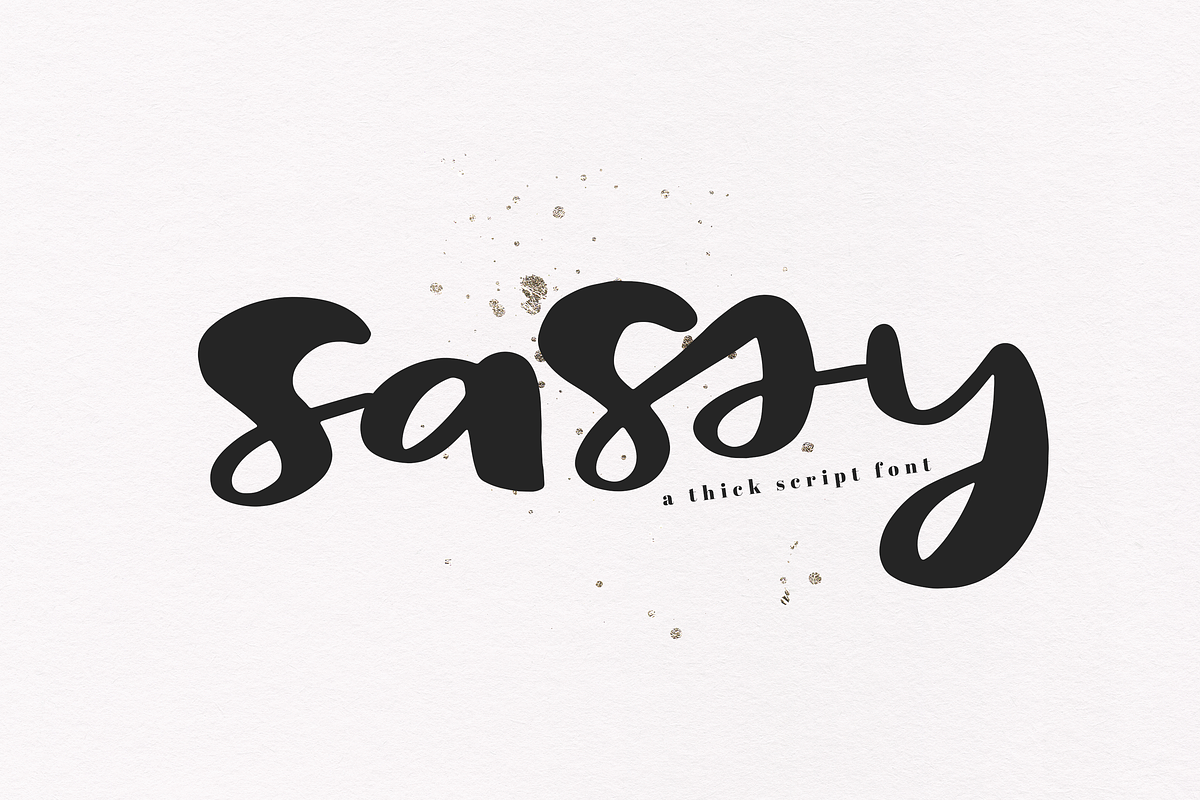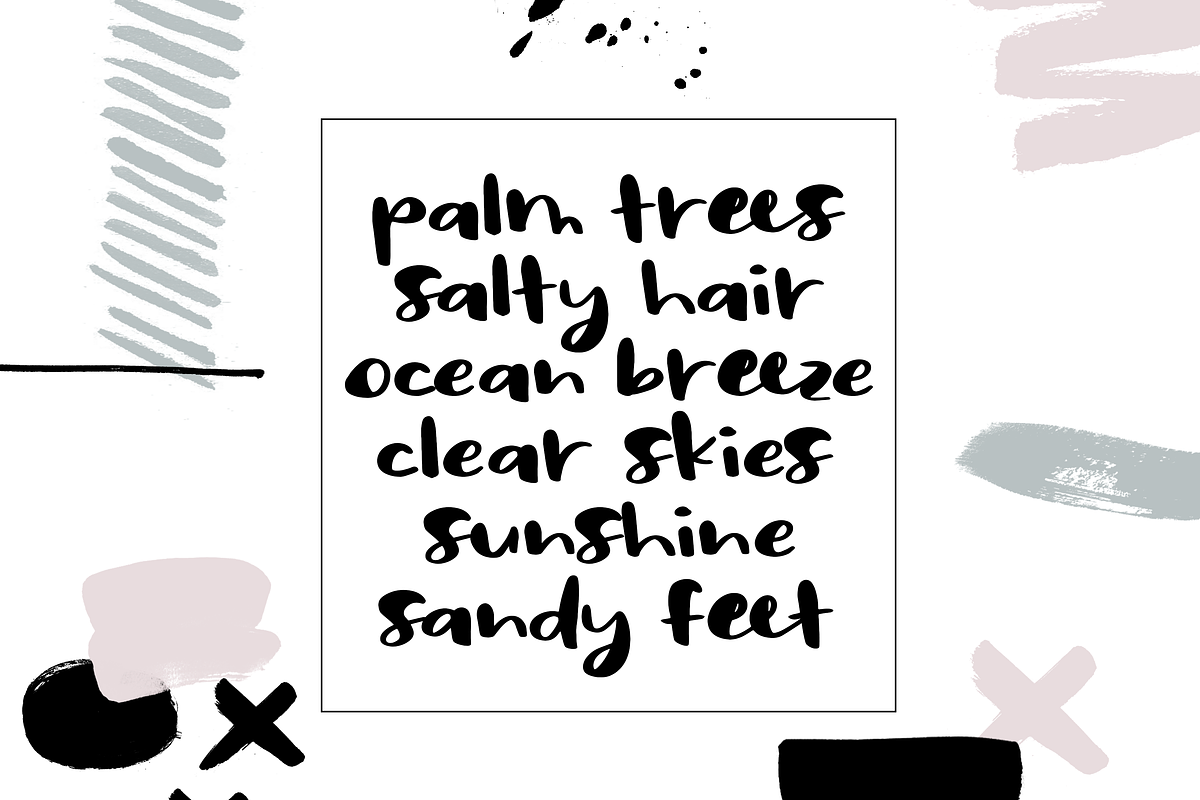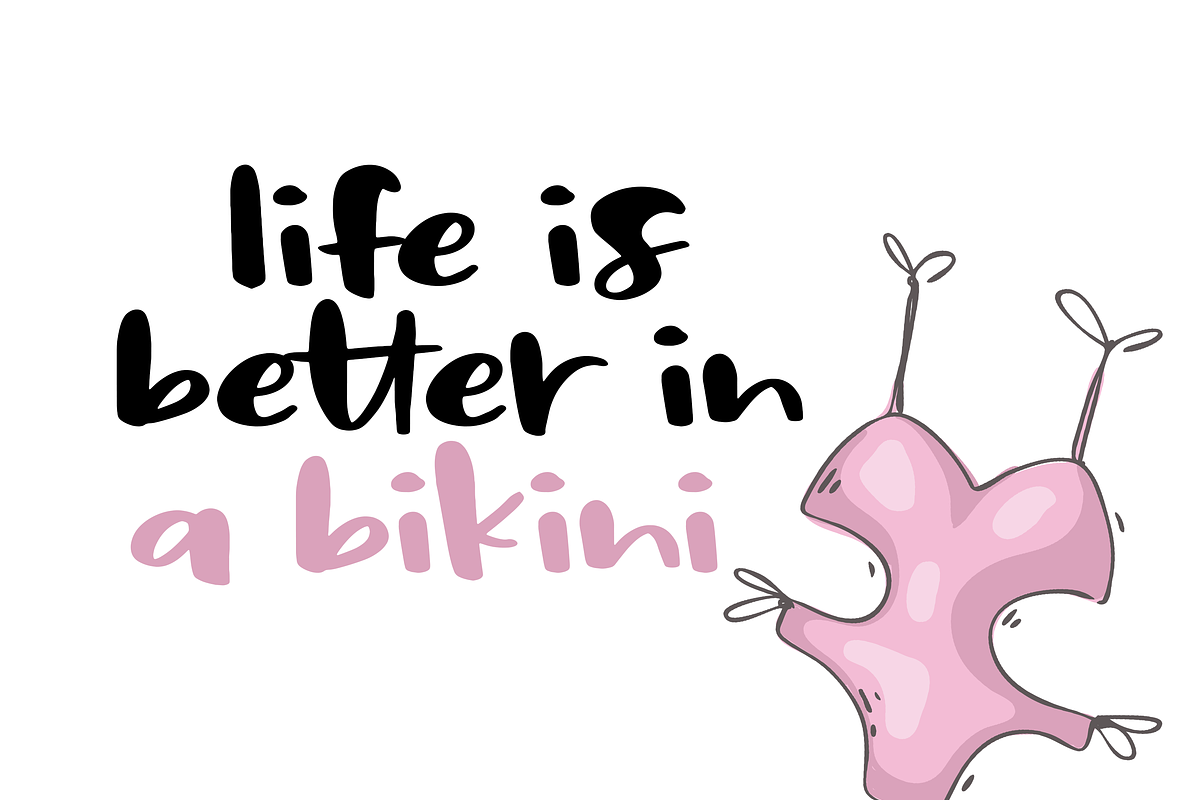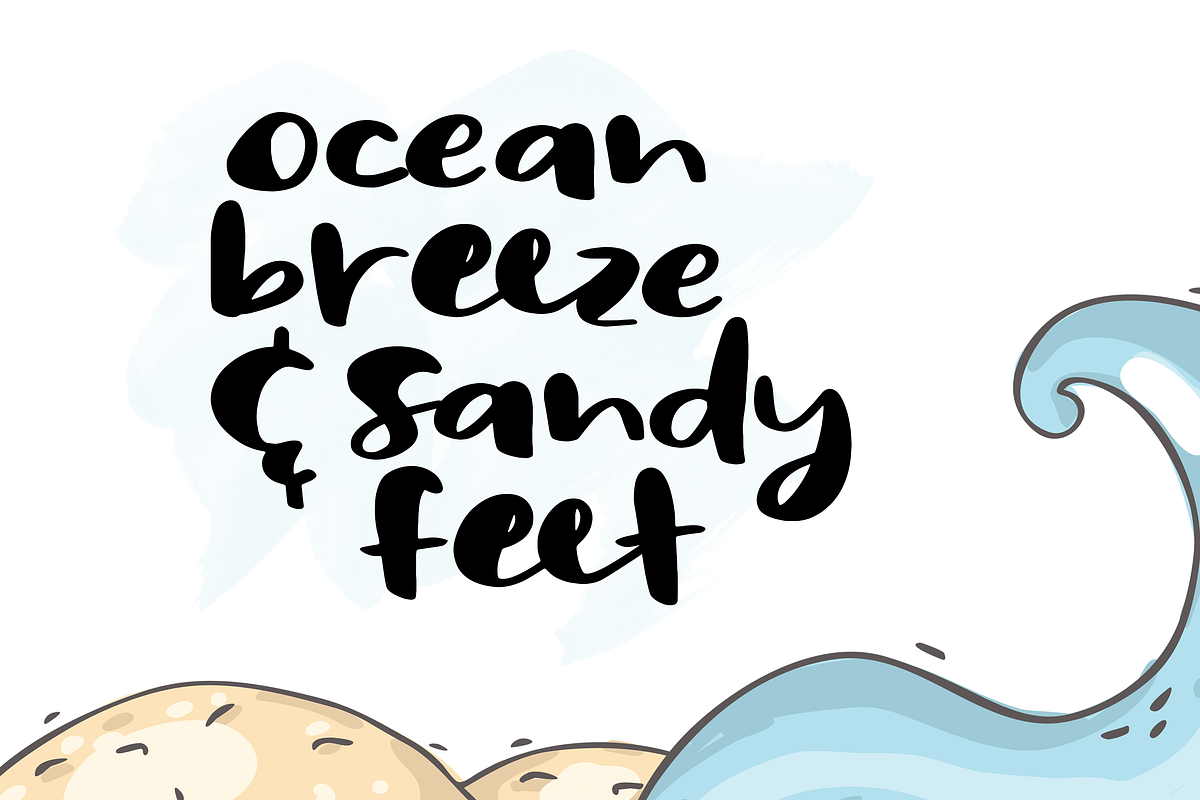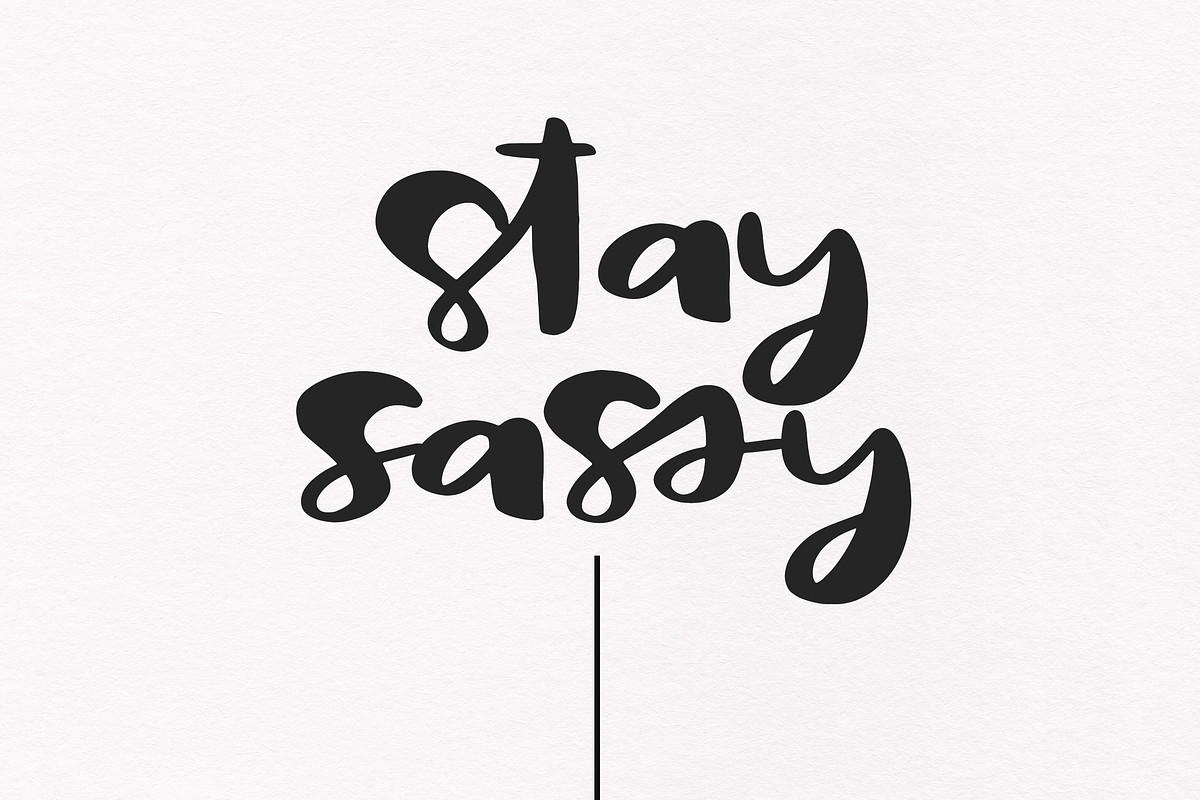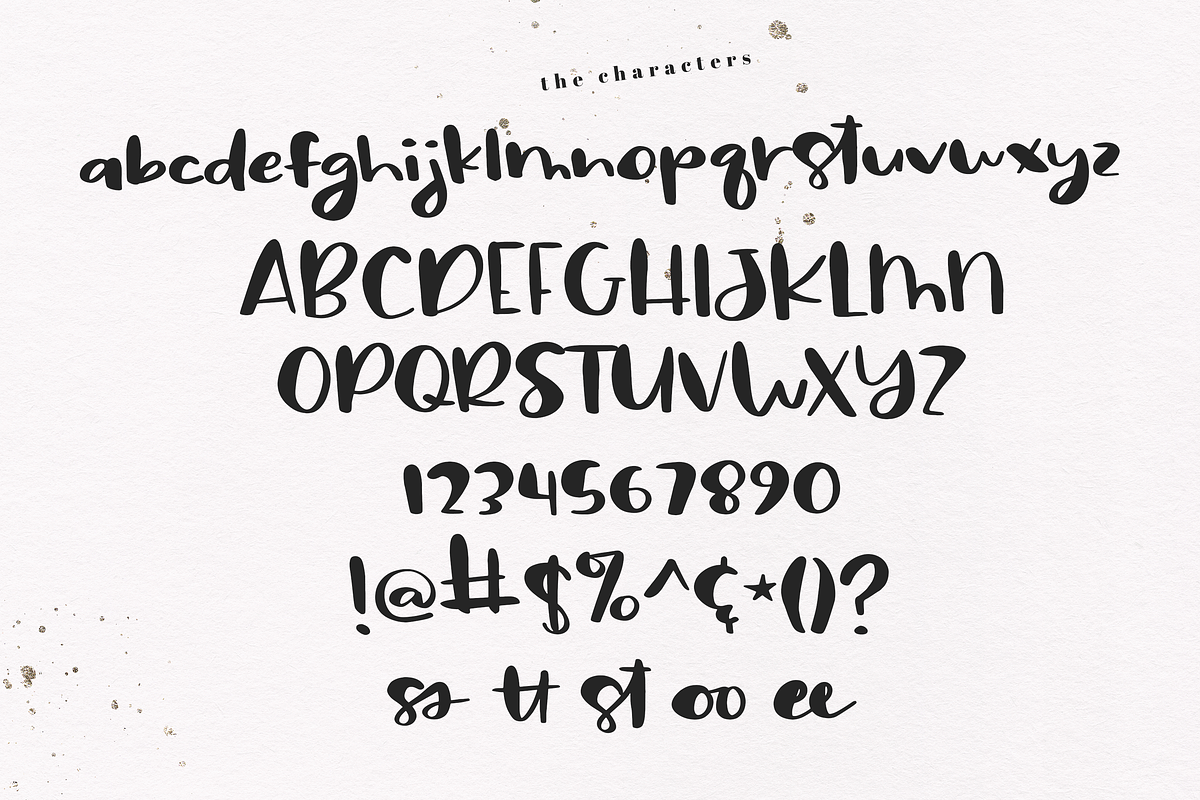
Sassy - A Bold Handwritten Font
Sassy is a fun handwritten font with big, bold characters.
This font is perfect for quotes, headings, blogs, logos, invitations and more!